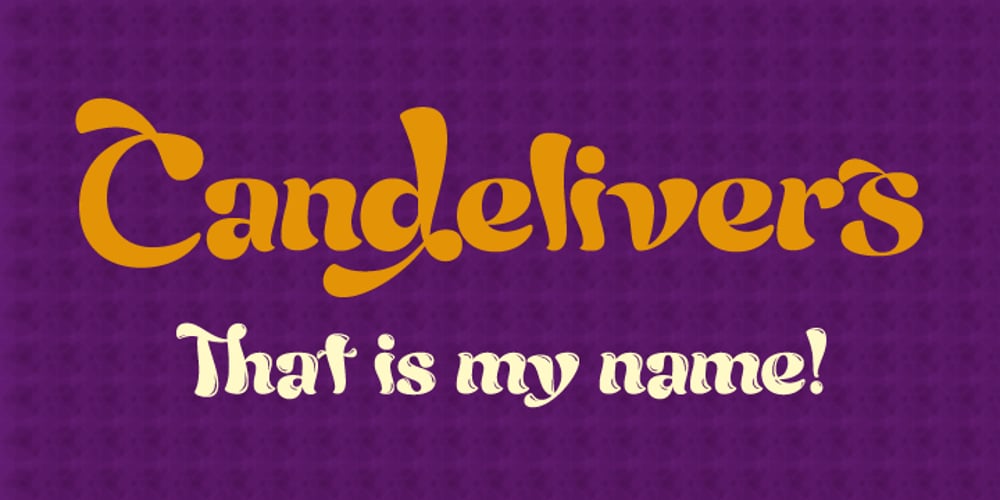
Candelivers Font Family was designed by published by Armasen. Candelivers contains 2 styles and family package options. Candelivers is a fun and display typeface, for better use in short sentences, or letterings and logo designs. It comes with a several features, like swashes, alternates and ligatures. It has a little not simmetry between the characters that gives a personality and handmade touch. A Glow version is also available to give more soft and fun personality. I hope you enjoy it!